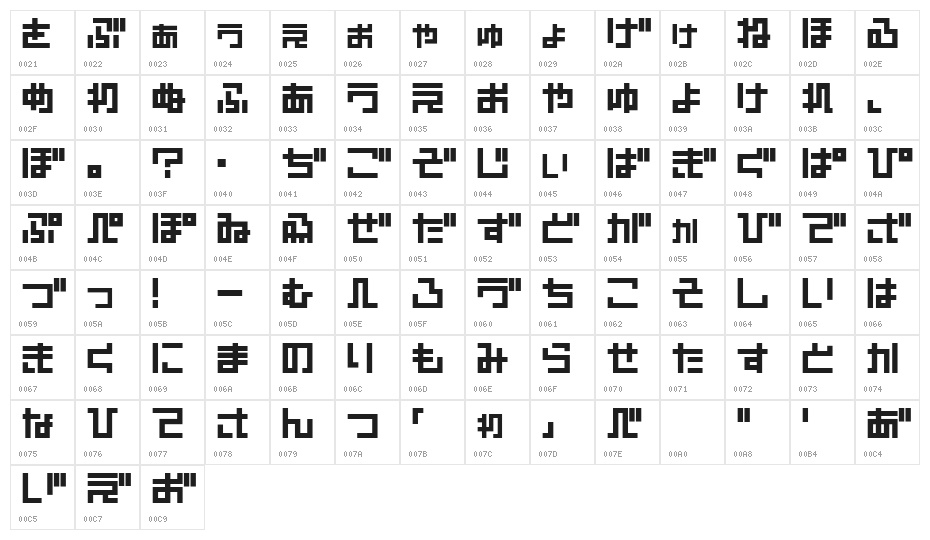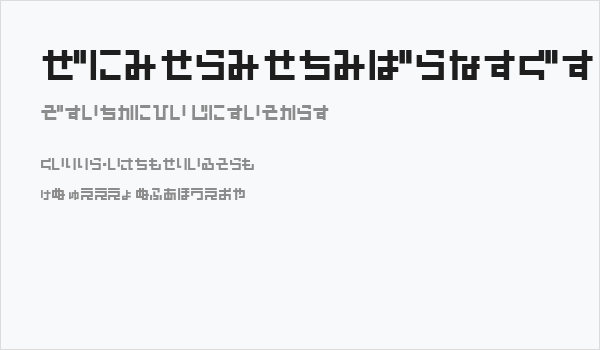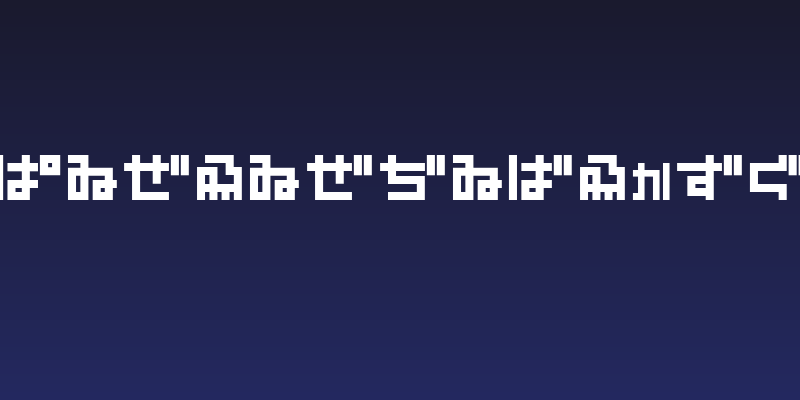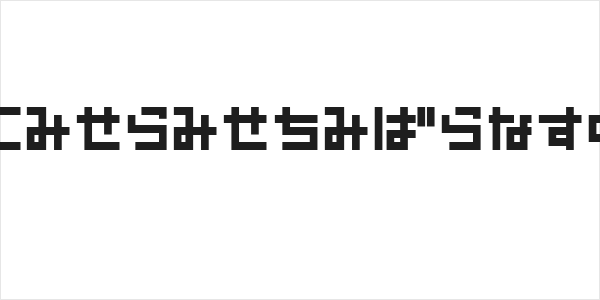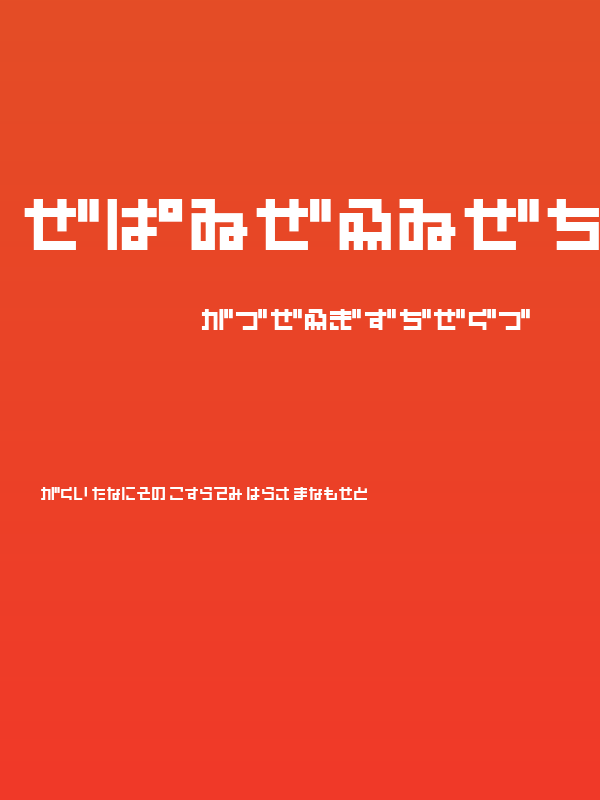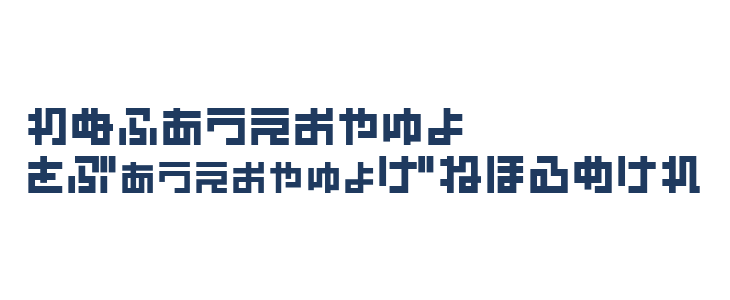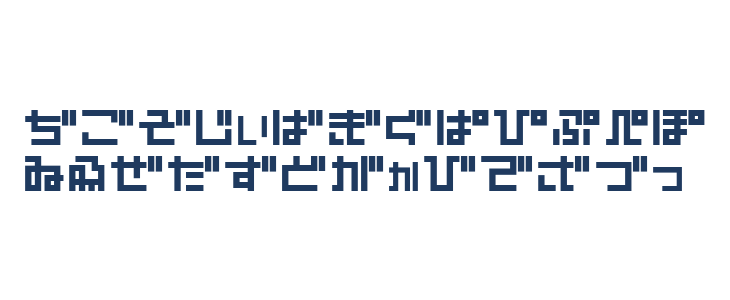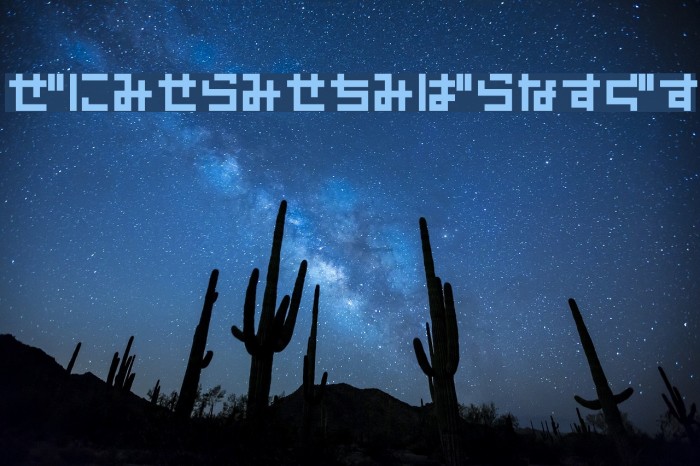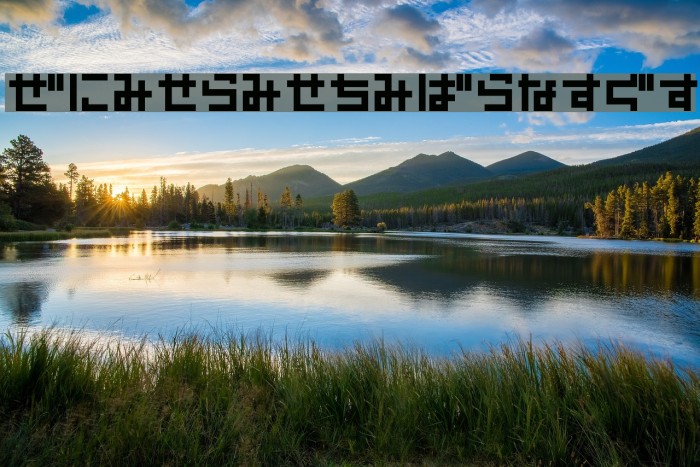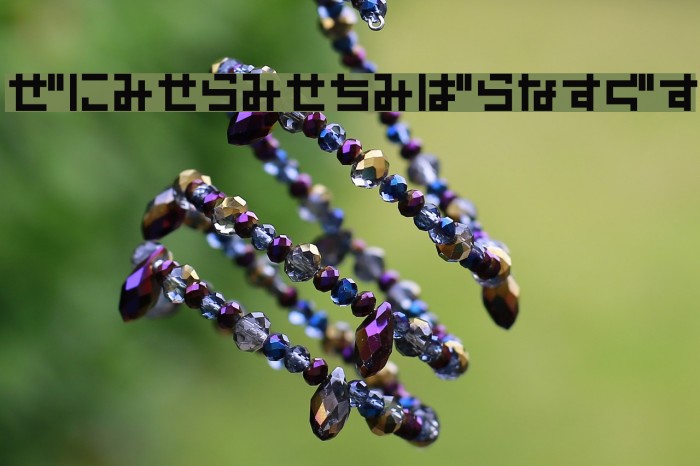
PinponpanFourHr Font
PinponpanFourHr Description
This font features a bold and geometric design, characterized by its block-like structure and uniform stroke width. The characters are distinctly angular, with a modern and digital aesthetic that suggests a futuristic or tech-oriented theme. The font maintains a consistent height across all characters, providing a uniform appearance that enhances readability. Its clean lines and lack of serifs contribute to a minimalist style, making it suitable for digital displays and interfaces. The overall design is straightforward yet impactful, with a focus on clarity and simplicity.
| Use Case | Headlines, Logos, Digital Interfaces |
| Proposed Projects | Ideal for tech-related branding, digital interfaces, video game design, and futuristic-themed projects. |